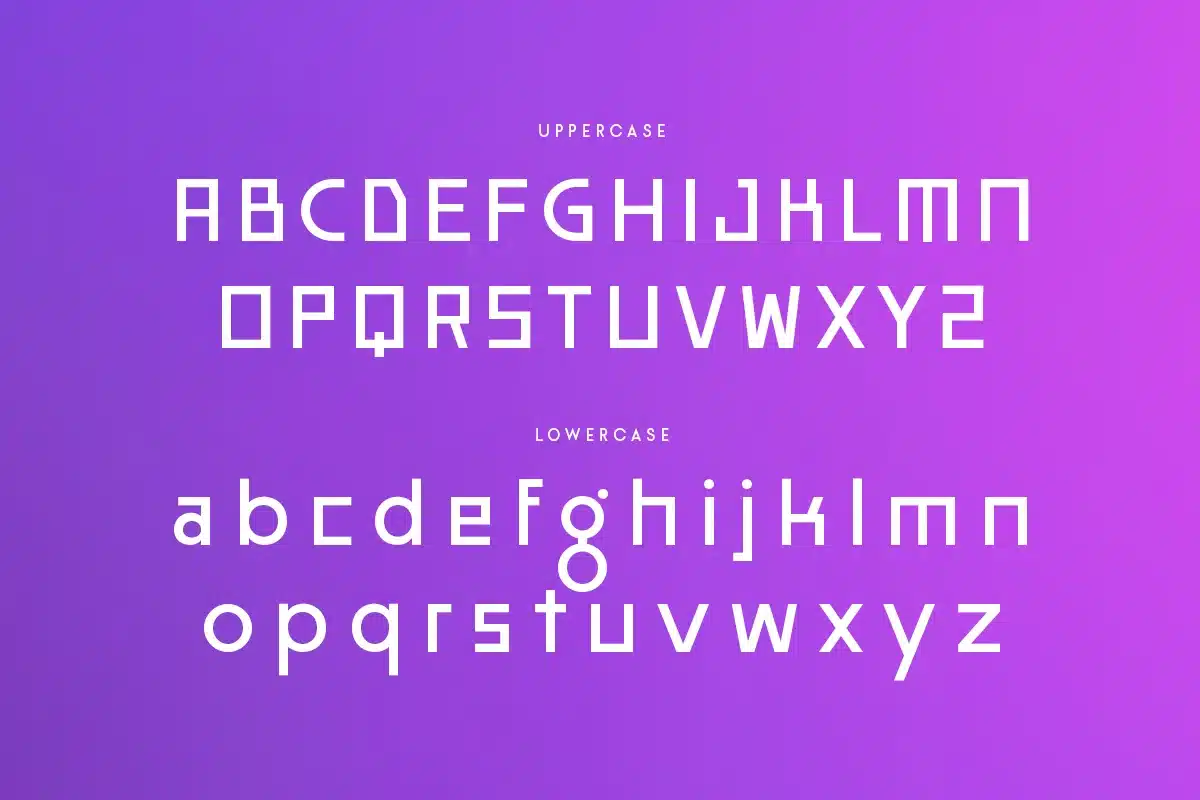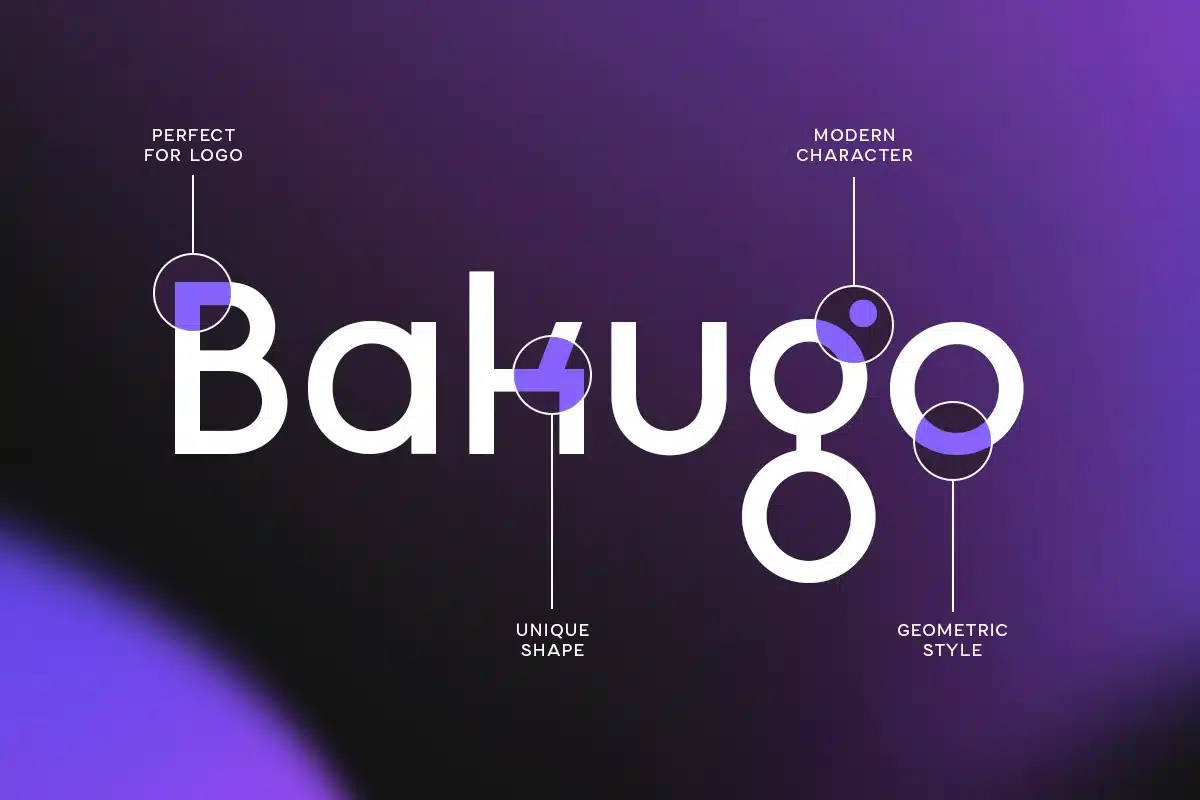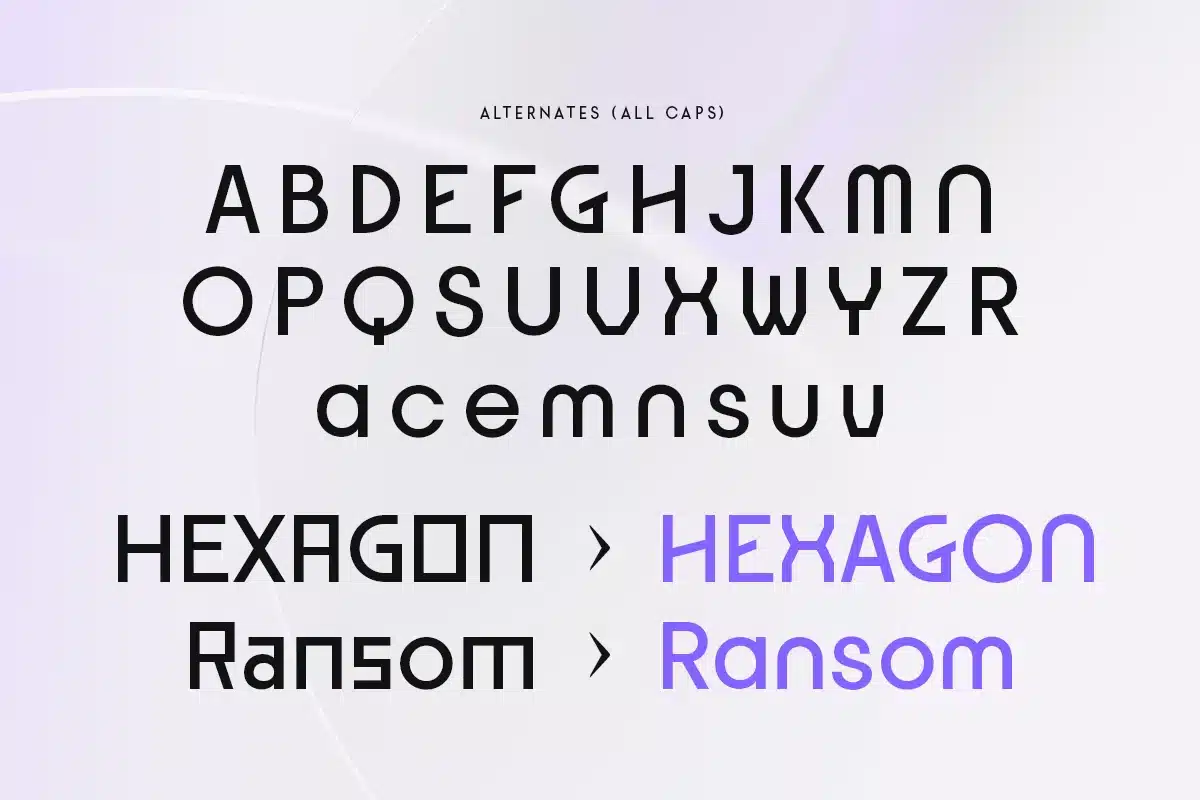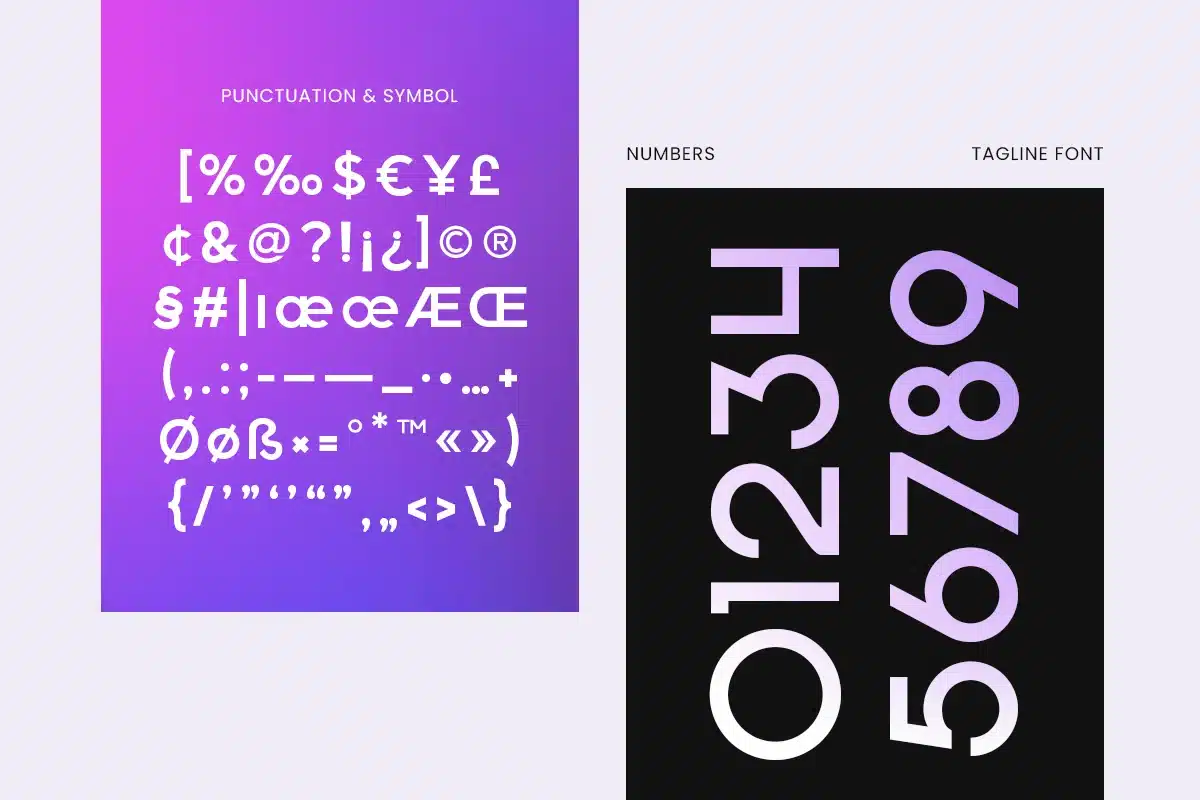
Tagline – Logo Font
Tagline is a modern font designed for today’s technology-driven world. Its sleek, clean lines and sophisticated style make it ideal for tech logos and branding projects that require a contemporary touch. Crafted with versatility in mind, Tagline is perfect for a wide range of applications from logos and website designs to promotional materials. Its modern aesthetic ensures your brand stands out with a forward-thinking and professional look. Whether you’re creating a cutting-edge tech logo or updating your company’s branding, Tagline offers the perfect balance of style and readability for a polished, modern impression.